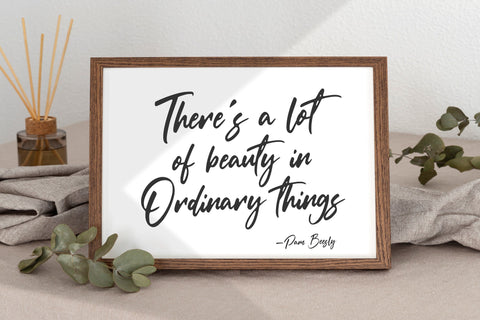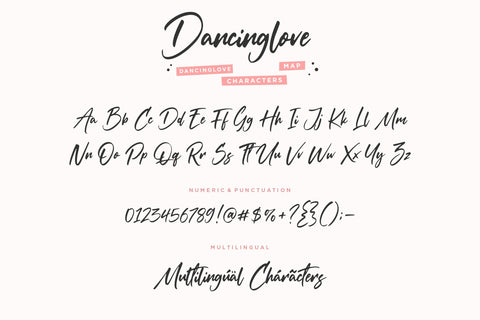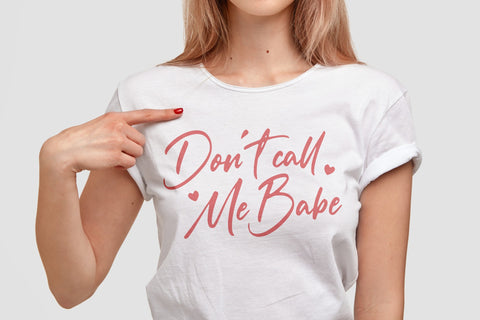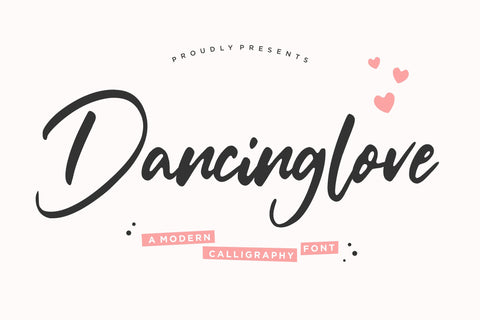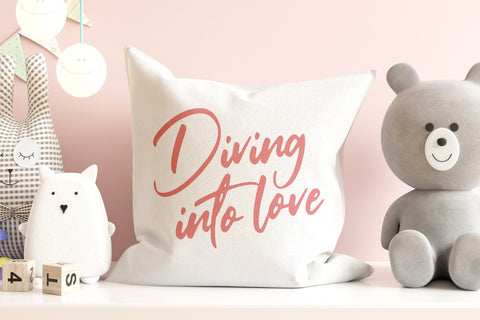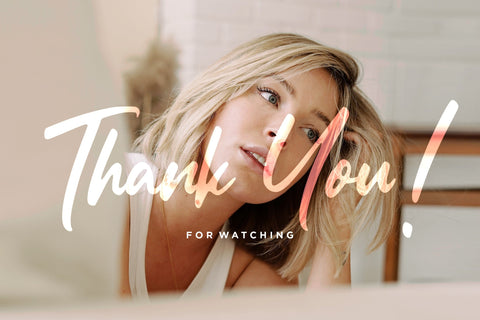
Dancinglove Modern Calligraphy Font
Proudly Present, Dancinglove Font.
Dancinglove is a Modern Calligraphy Font.
Dancinglove is a unique and elegant handwritten font. It looks beautiful on a variety of designs requiring a personalized style, such as wedding invitations, thank you cards, weddings, greeting cards, logos and so on.